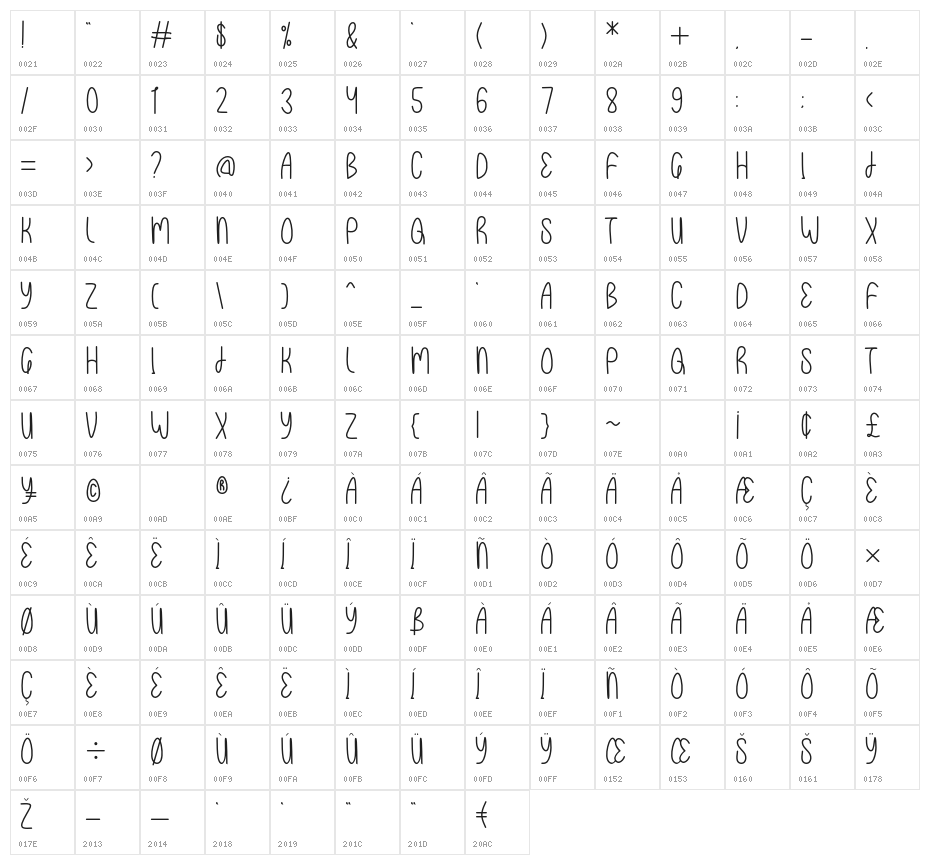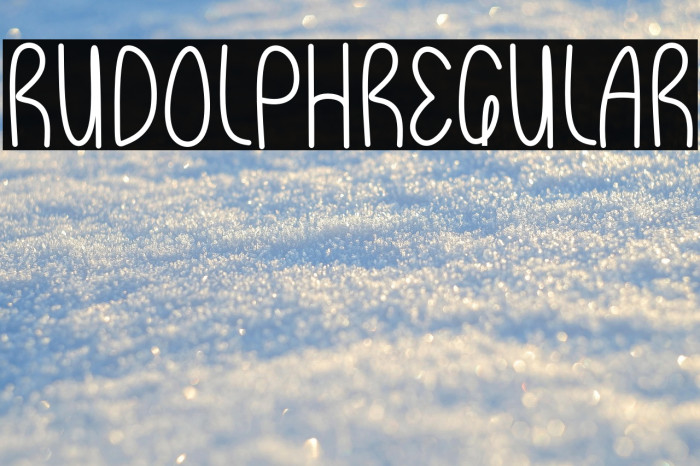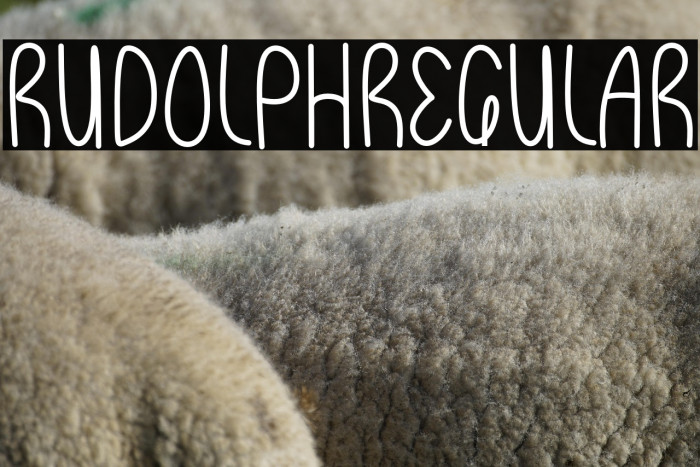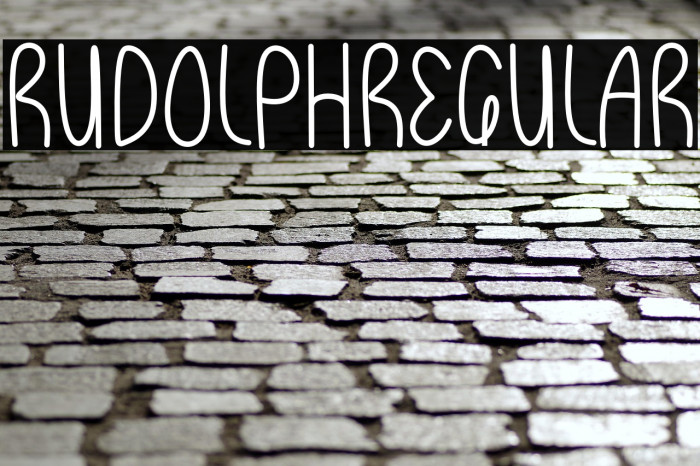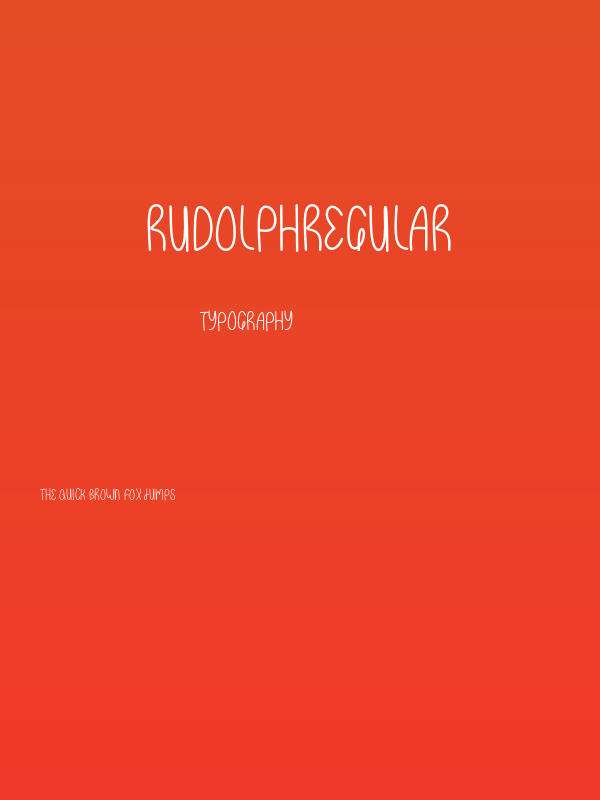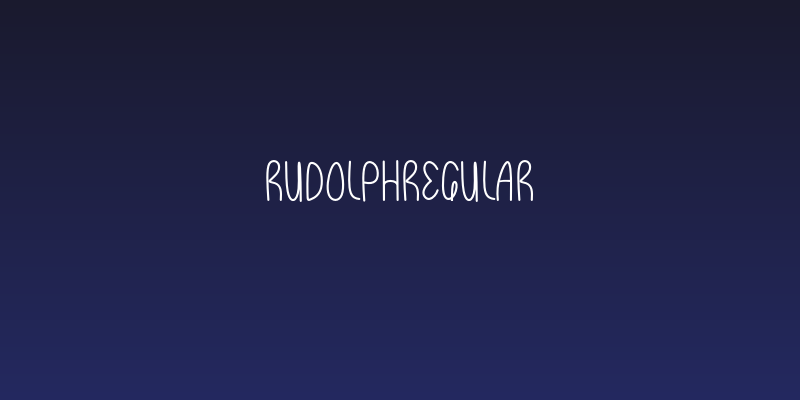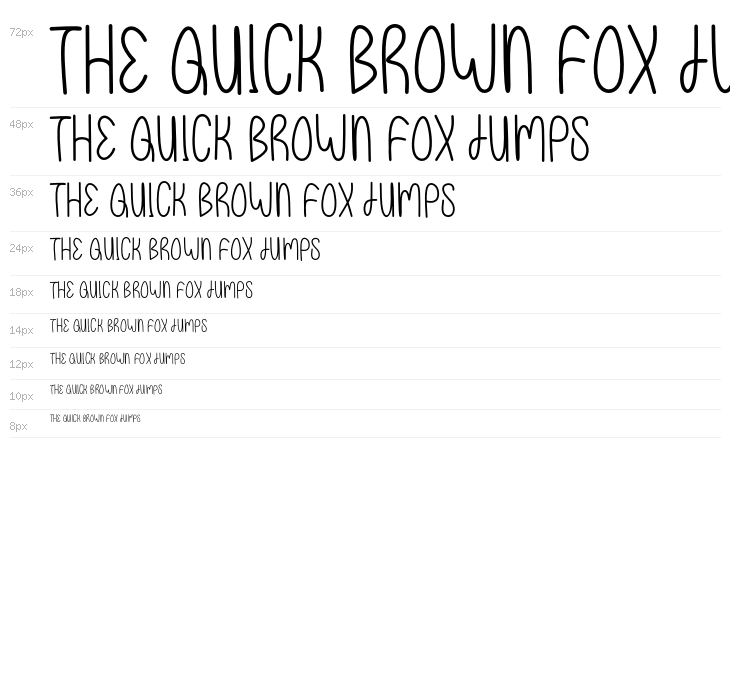
RudolphRegular Font
RudolphRegular Description
This playful and whimsical font features tall, narrow letters with a hand-drawn aesthetic. The strokes are smooth and rounded, giving it a friendly and approachable feel. The uppercase and lowercase letters maintain a consistent style, with slight variations that add to its charm. The numbers are equally playful, with a consistent height that matches the letters. Special characters are included, maintaining the same quirky style. This font is perfect for projects that require a touch of fun and creativity.
| Proposed Projects | Ideal for children's books, greeting cards, playful branding, and creative posters. |